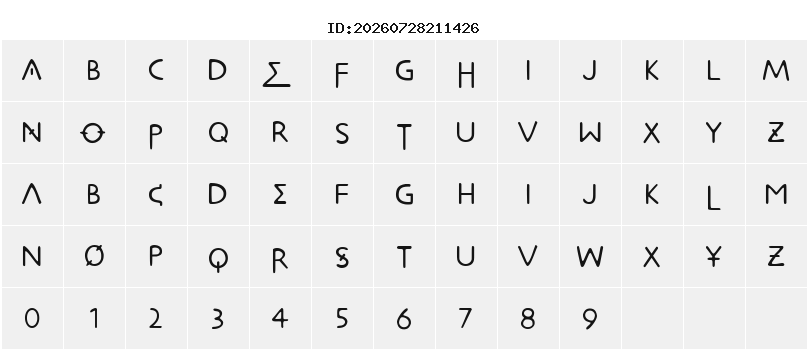
Metrolox Preview
• Description: © Karen Clemens & Apostrophic Laboratories. All rights reserved. Email apostrofe@mail.com for more information. Loosely based on a few letters seen in the Enemy of the State movie titling. The unicode release of this font contains 568 glyphs and offers support for more than 30 latin-based languages as well as a long list of code pages. Consult the font's documentation for technical details.
Metrolox.ttf is a modern, elegant sans-serif font designed for ultimate readability and visual harmony. Perfect for branding, headlines, web design, and print materials.